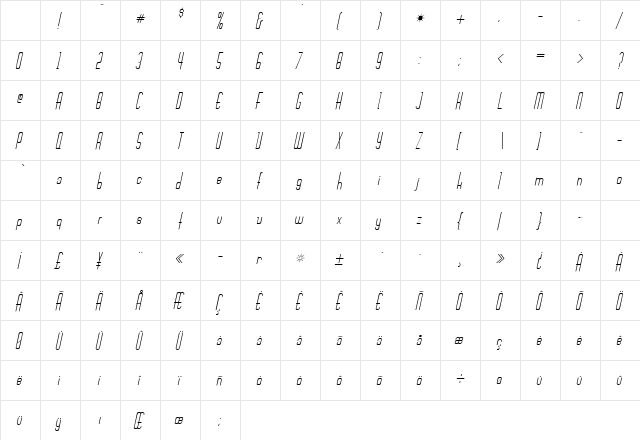
Complete Chasline Oblique glyph index. Displaying only characters natively supported by Chasline Oblique font.
Chasline is a composed and adaptable typeface that performs quietly and consistently across a wide range of design contexts. The slanted form adds forward momentum and visual energy.
Pro Tip: Use Chasline for emphasis, pull quotes, and subheadings where its slanted energy can add rhythm to the layout.